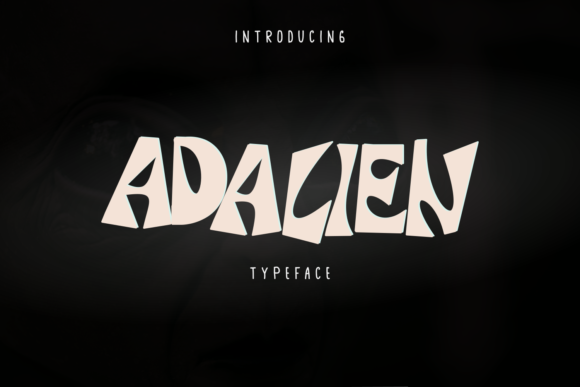
Prepare yourself to be captivated by the enchanting Adalien Font, a masterpiece meticulously crafted to leave an indelible mark on your creative endeavors. This display font exudes a cool, wavy, and whimsical charm, captivating audiences with its unique and enchanting style.
Unleash your creativity and explore the boundless possibilities that await with Adalien. Let your imagination soar as you design eye-catching t-shirts, sportswear, logos, advertisements, and clothing that radiate with personality and style. Adalien's versatility shines through, adapting seamlessly to diverse projects, ensuring that your designs stand out from the crowd.
Be the envy of your competitors with Adalien's distinctive appearance. Its intricate curves and playful strokes add a touch of whimsy and elegance that commands attention. Whether you're a seasoned designer or just starting your creative journey, Adalien is the perfect companion, guiding you towards stunning and impactful designs.
Don't settle for ordinary fonts that blend into the background. Embrace the extraordinary with Adalien. Its unique characteristics will elevate your designs to new heights, leaving a lasting impression on your audience. Prepare to be amazed by the compliments and recognition you receive as your creations captivate and inspire.